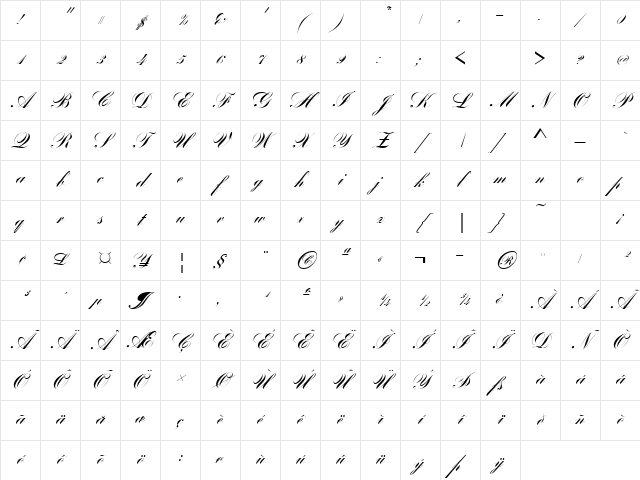
Bank Becker Script Joining Regular
Design Context for Bank Becker Script Joining
Bank Becker Script Joining flows with the natural rhythm of handwritten lettering, making it ideal for designs that call for warmth and personal expression.
Font Pairing: Combine Bank Becker Script Joining with a simple geometric sans for maximum contrast - the tension between flowing curves and clean structure is a classic typographic pairing.
Pro Tip: Use Bank Becker Script Joining for short runs of text - names, titles, or taglines. Extended body copy in script faces tires the eye quickly.